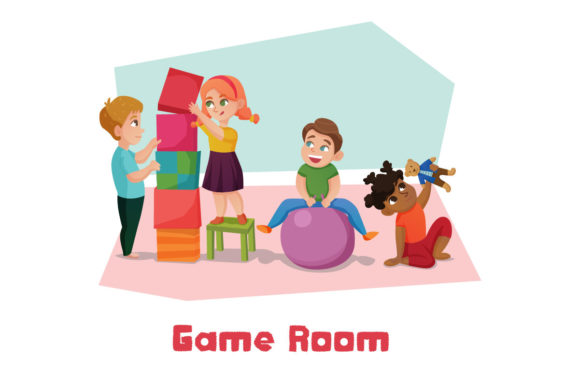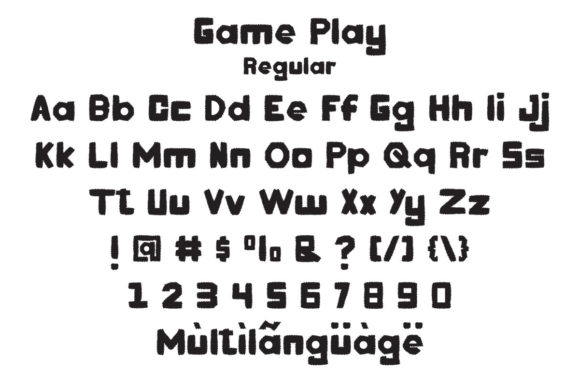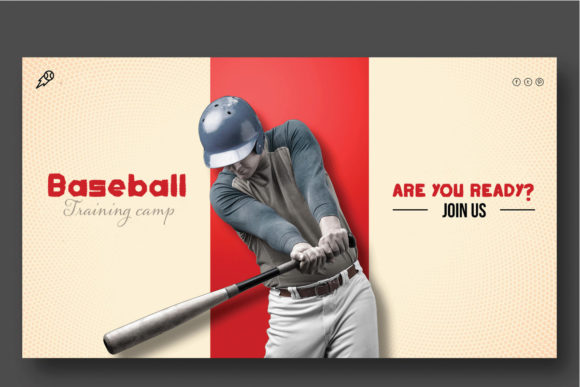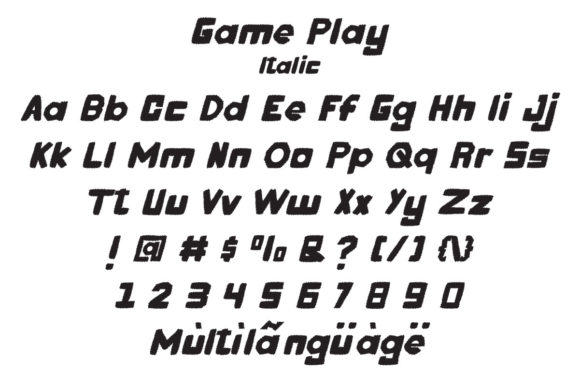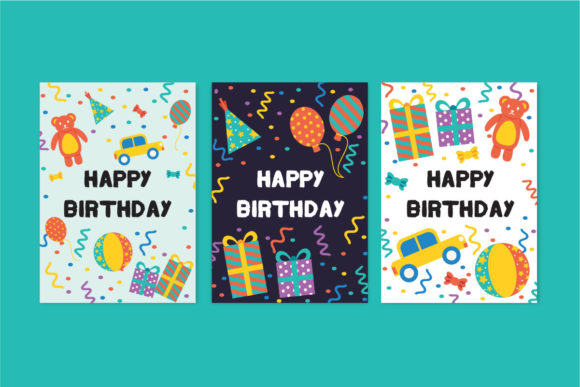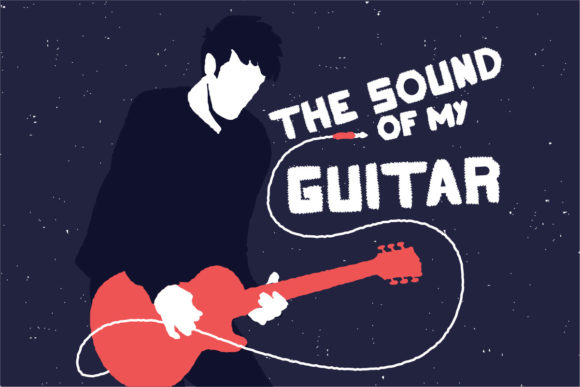
The Ultimate Game-Changer: Exploring the Game Play Font
Have you ever been in the middle of a design project, and suddenly, you’re stuck on finding the perfect font? I recall a particularly frustrating experience while working on a tech event poster. My client wanted a bold, modern font that would capture the essence of innovation and fun. After hours of scouring the internet, I stumbled upon the Game Play font. It was love at first sight! ✨
In this article, we’ll dive into the world of Game Play, a unique display font that’s perfect for designers, crafters, and creative hobbyists. We’ll explore its features, how to use it on different platforms, and some similar fonts you might enjoy.
An Honest Review of Game Play Font
- ✨ Bold and modern characters: Game Play’s unique style is perfect for making a statement in your designs.
- ✅ Versatility: This font works great for various projects, including games, technology events, spaceships, headlines, logos, posters, titles, and products.
- 🎨 Inspired by games, techno, and hip posters: The font’s inspiration is evident in its edgy, futuristic vibe.
While Game Play is an amazing font, there are a few things to keep in mind: 🤔
- ⚠️ Limited use cases for body text: Due to its bold and modern style, Game Play might not be the best choice for lengthy body text.
The Designer Inspiration Behind Game Play
The Game Play font was inspired by the world of gaming, techno, and hip posters. Its creator aimed to craft a unique and bold font that would capture the essence of innovation and fun. By combining elements of modern design and futuristic typography, Game Play was born.
| Font Name | Game Play Font |
| Author | NoahType |
Q: What type of projects is Game Play best suited for?
A: Game Play is perfect for games, technology events, spaceships, headlines, logos, posters, titles, and products.
Q: Can I use Game Play for body text?
A: While Game Play is a beautiful font, it might not be the best choice for lengthy body text due to its bold and modern style.